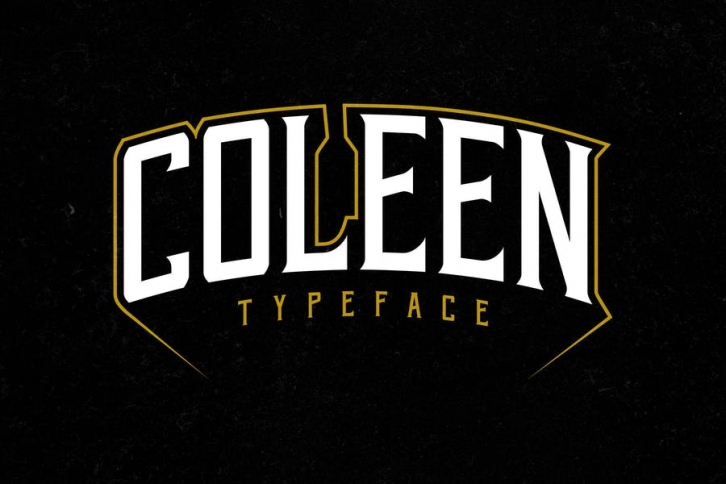
Introducing Coleen, another classic-vintage serif from us. Built with sharp and clean shapes, suits best for headlines, space-killer, etc. Great addition if you're into classic/vintage themed design.